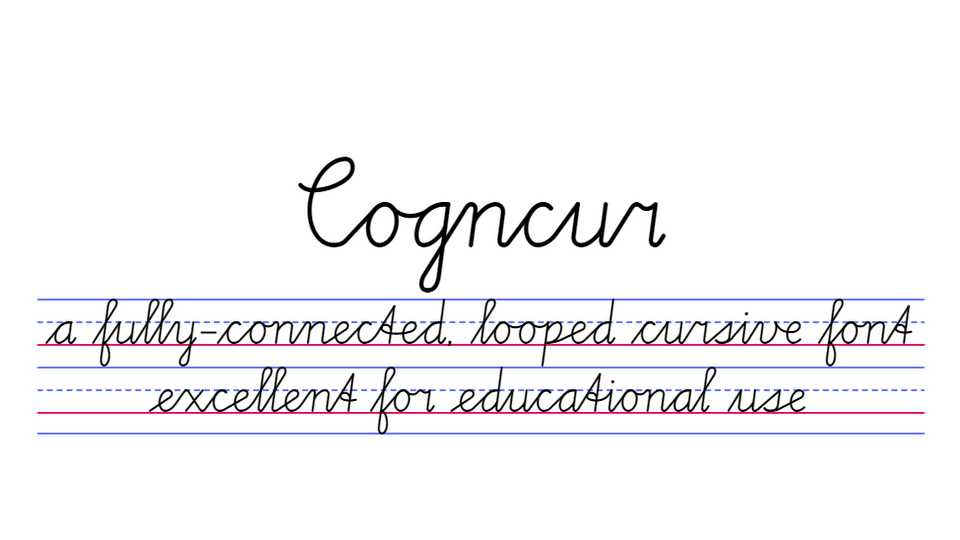
Download Cogncur font, a high quality, fully connected cursive font for teaching purposes. Cogncur font has the body proportions and the characteristic ‘arches’ and ‘counters’ of italic handwriting.
Designer: Liesbeth Flobbe